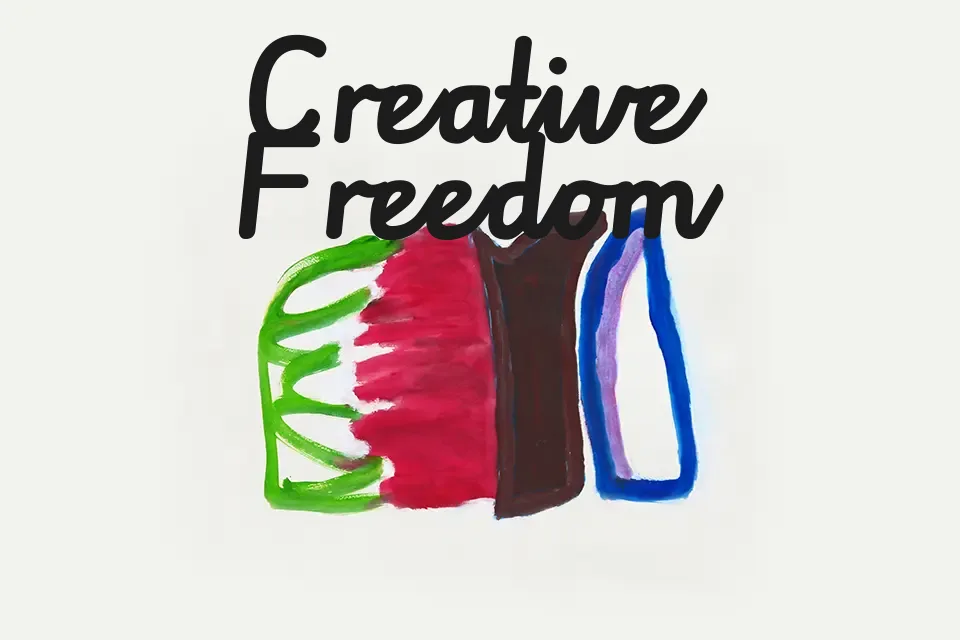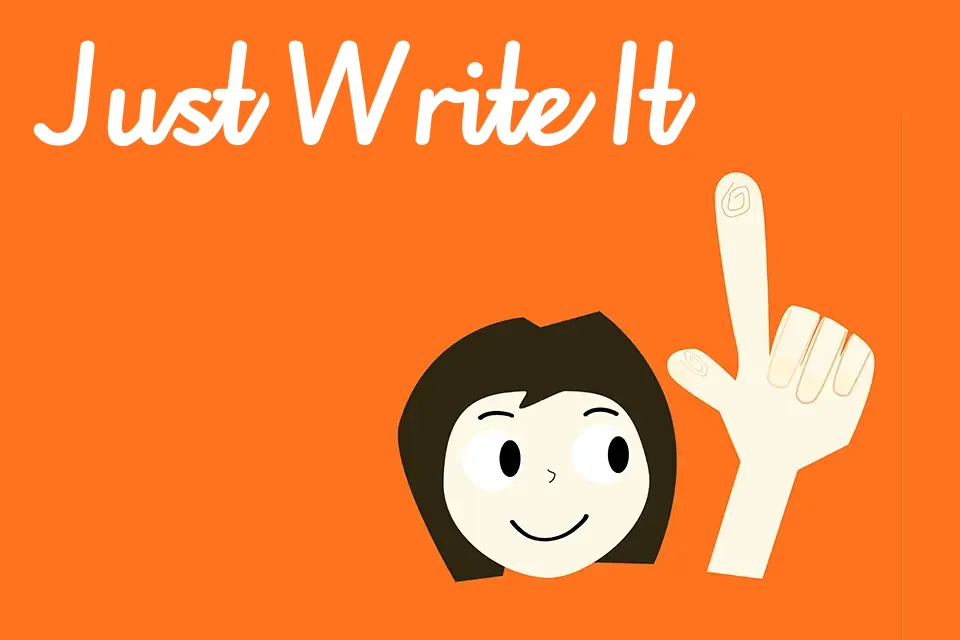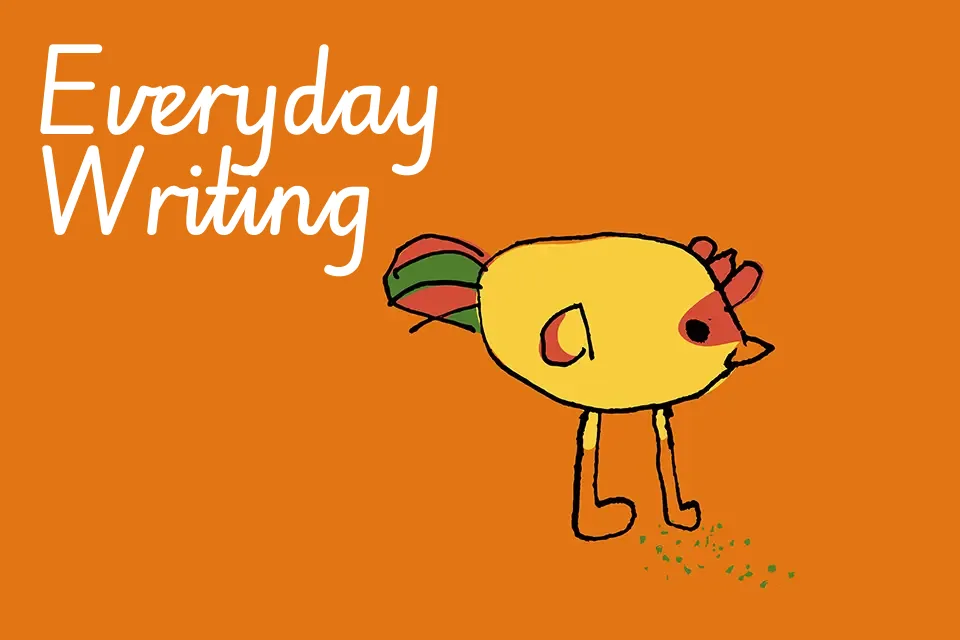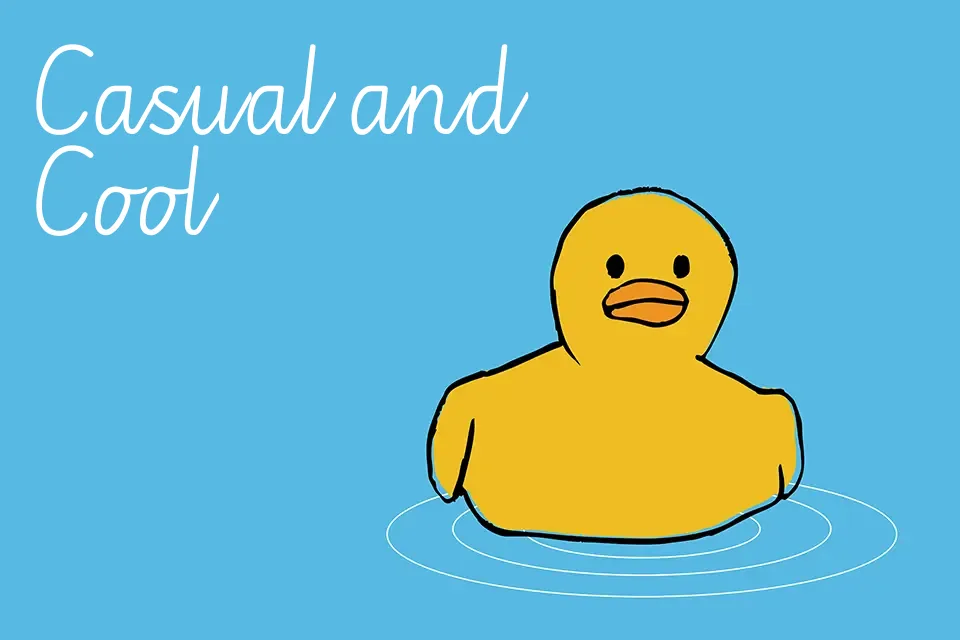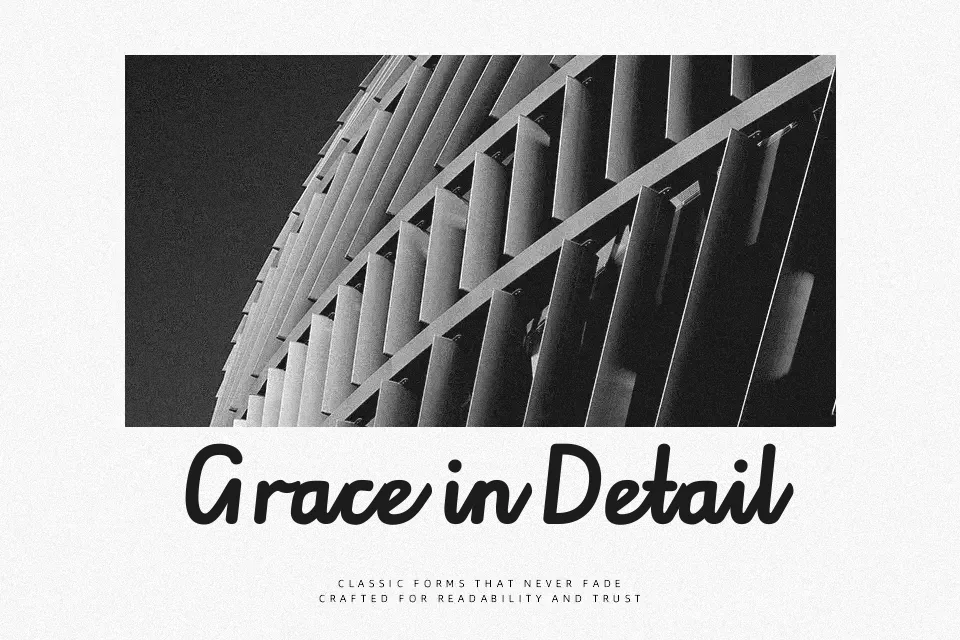
Edu NSW ACT Cursive Font
Designed by Tina Anderson, Corey Anderson
Edu NSW ACT Cursive is a school-style handwriting script with lightly rounded strokes, moderate weight, and generous counters that keep each word easy to scan. Letters connect with consistent, gentle joins, avoiding the exaggerated loops you see in more decorative cursive fonts. The overall impression is informal and instructional rather than stylish or ornamental, which suits classroom posters, exercise books, children’s activity sheets, or family-friendly apps that mimic real pen practice. It can feel too plain for high-end branding or dramatic headline work, but that same restraint is an advantage when you want students and young readers to focus on letter formation and readability instead of decoration.
educational worksheets
classroom posters
kids learning apps
school branding elements
luxury branding
dramatic advertising headlines
long-form editorial text
highly decorative logos
Perfect for body text, editorial, and kids, with a calm and handwritten style.